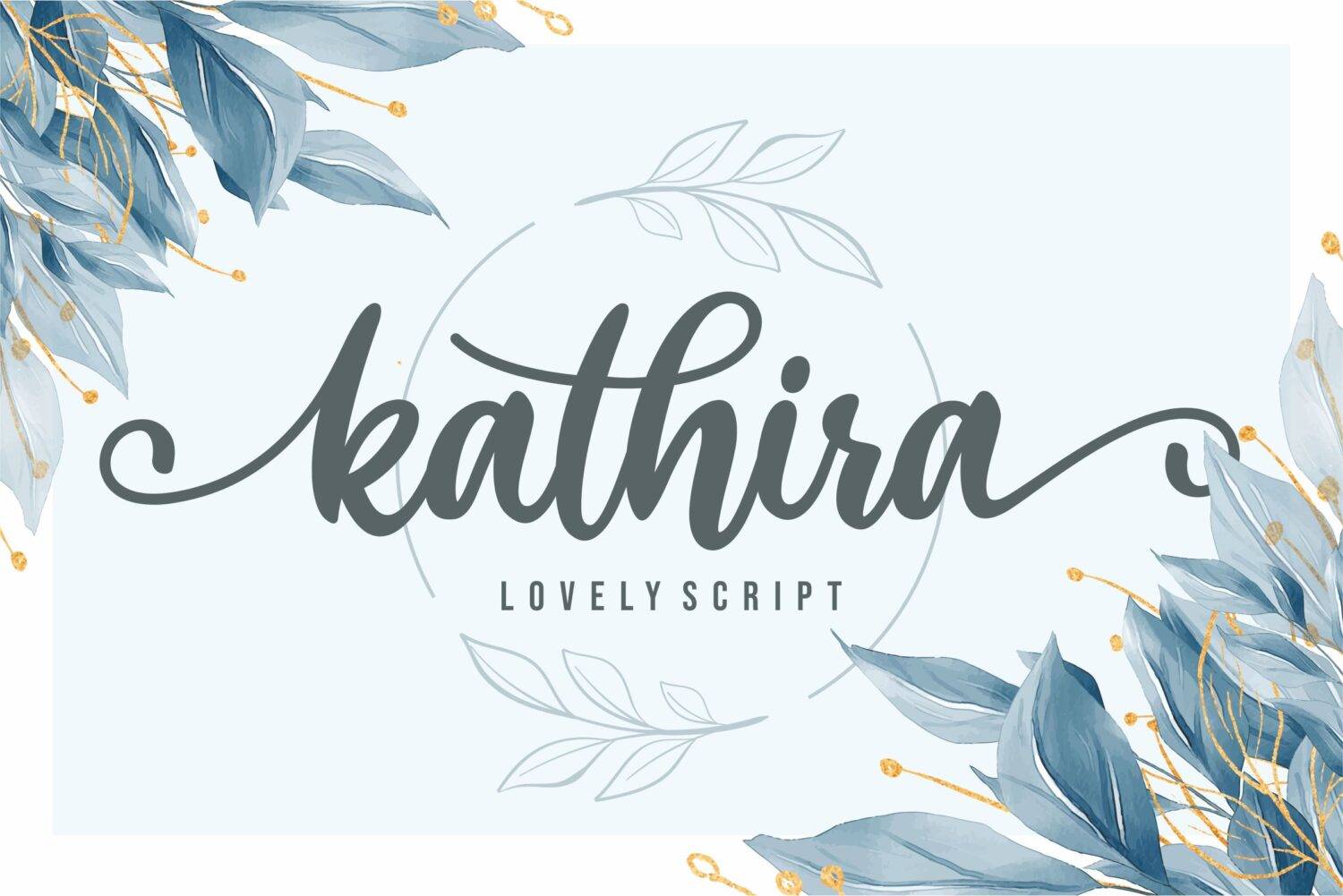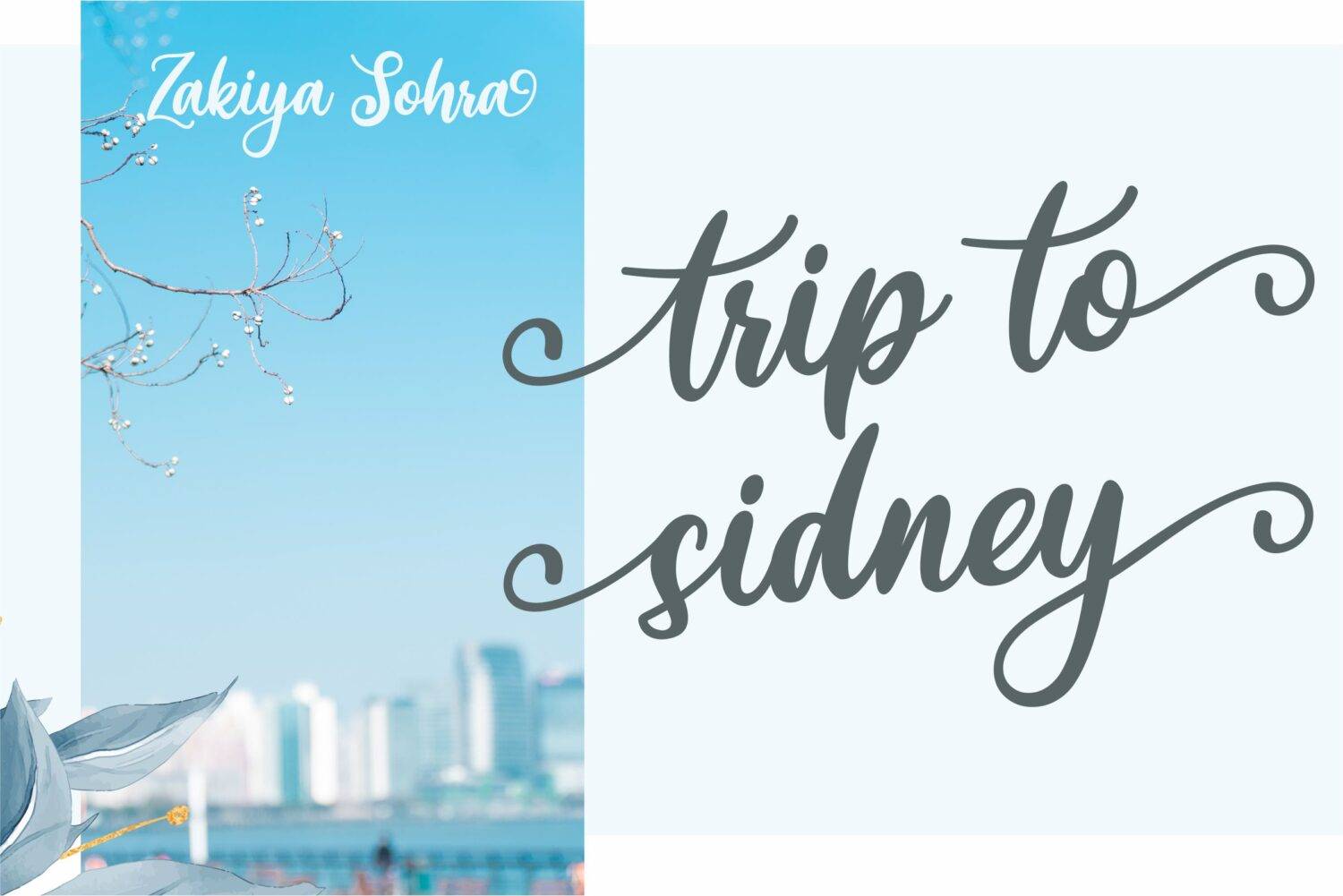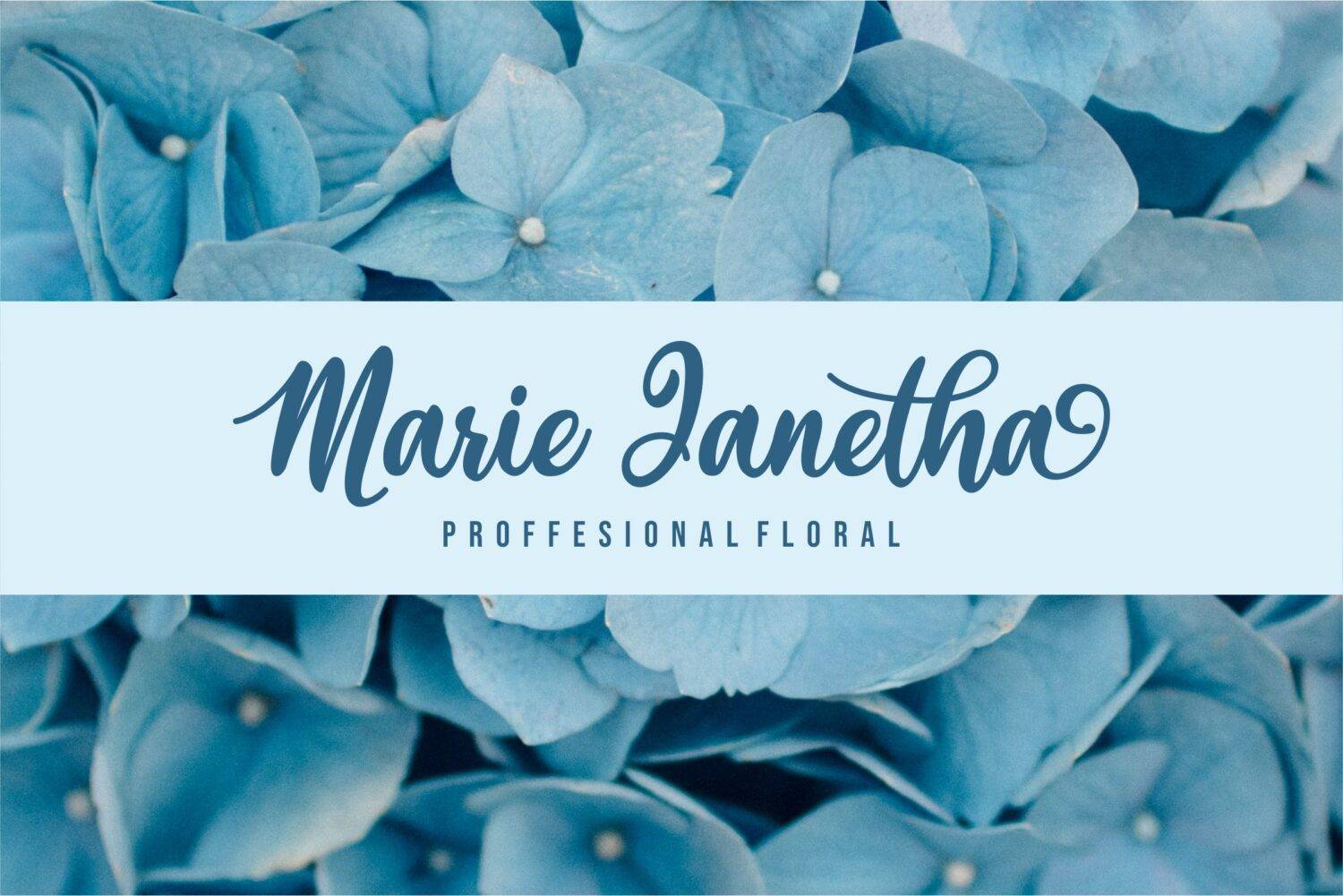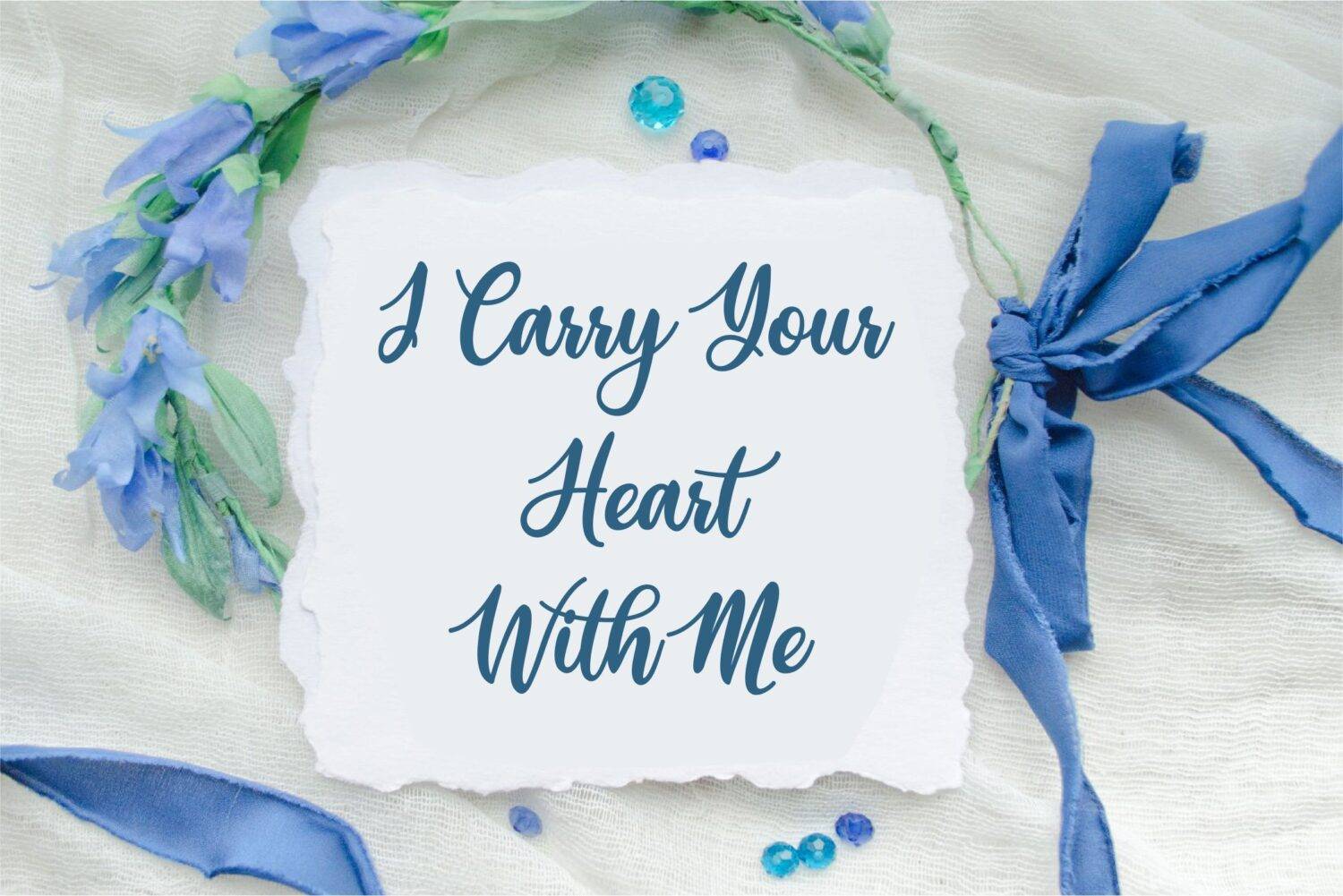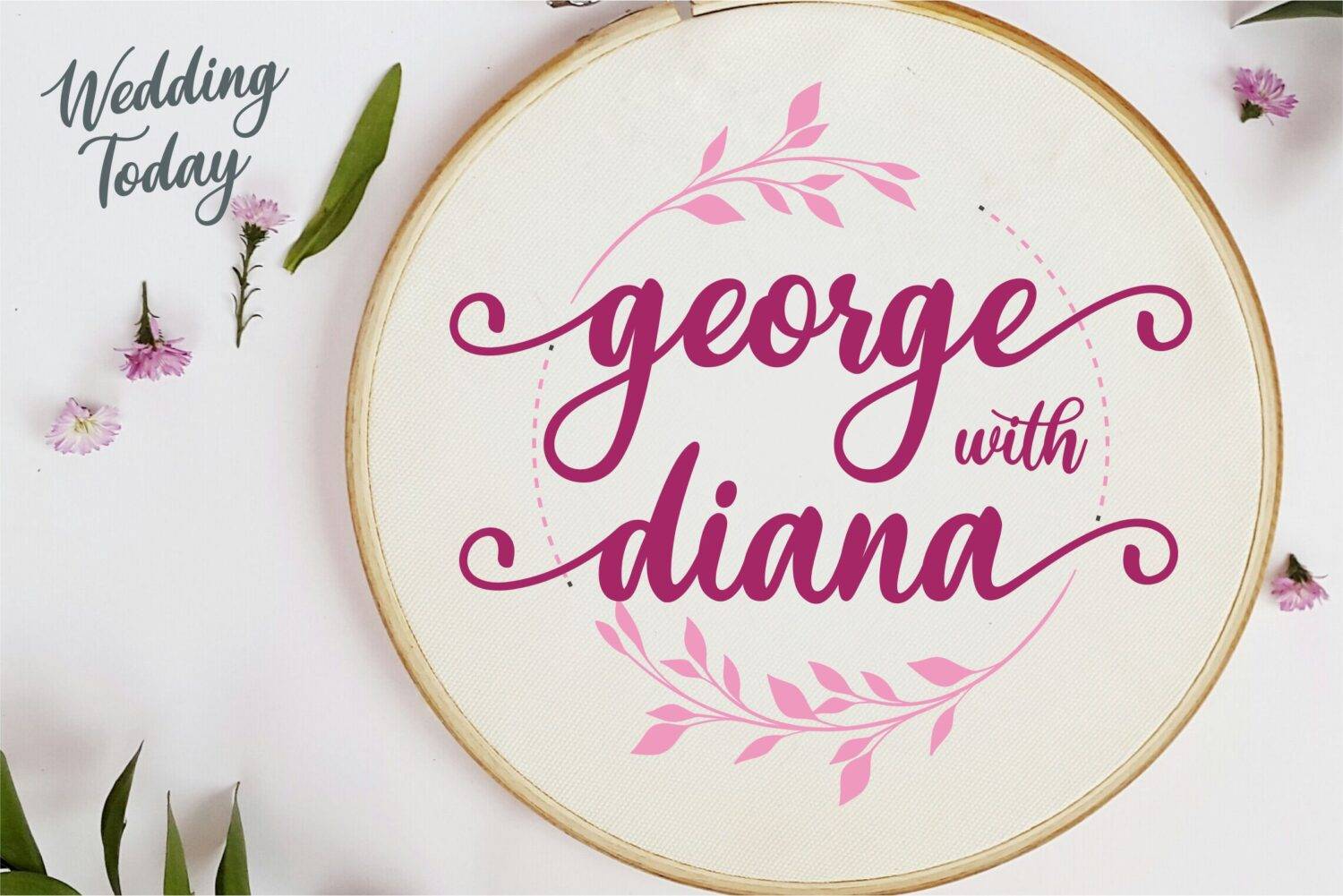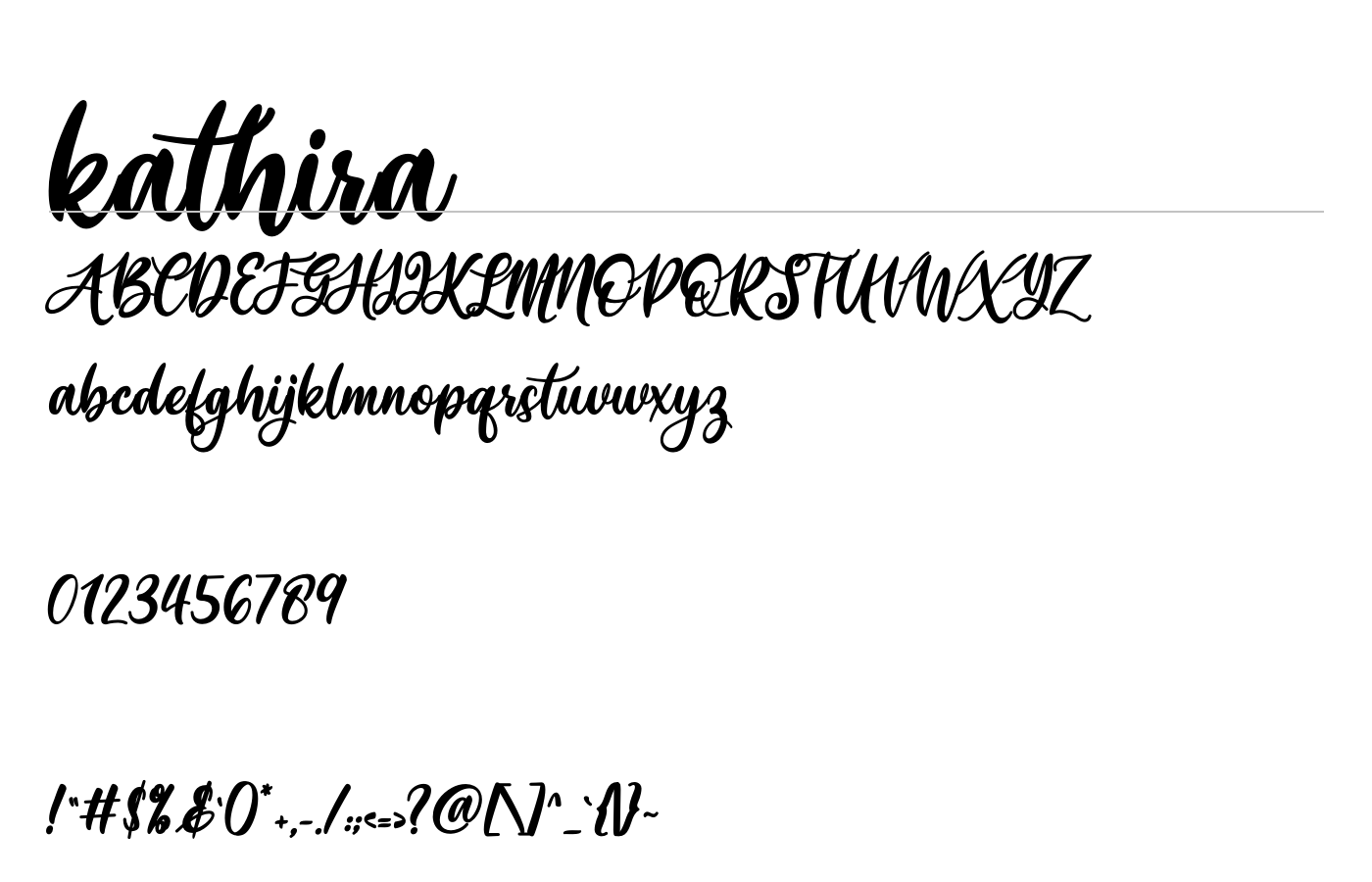
Kathira is a lively and elegant script font featuring smooth, flowing strokes with a moderate contrast that lends it a hand-lettered charm. Its connected letterforms and cursive style make it perfect for branding, invitations, and creative projects seeking a personable yet refined touch. Ideal for headlines and logos, Kathira adds a warm and stylish flair that suits fashion, beauty, and lifestyle designs beautifully.
Kathira Font
About Kathira Font
| Font family | Kathira Font |
| Designer | Awan Senja Team |